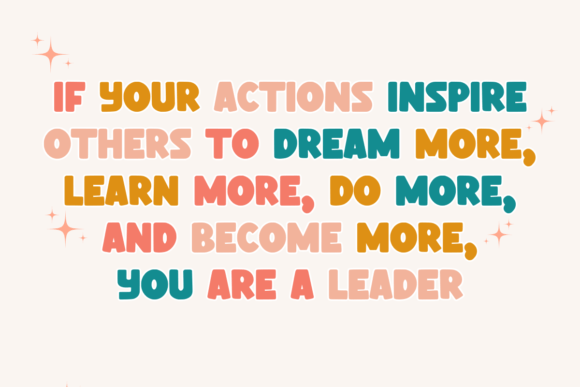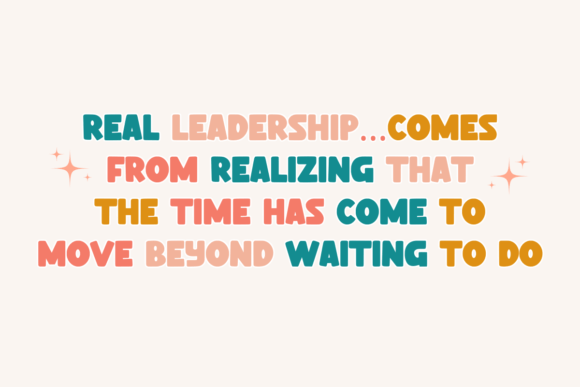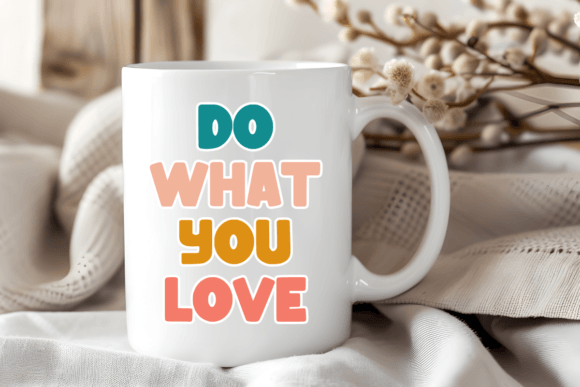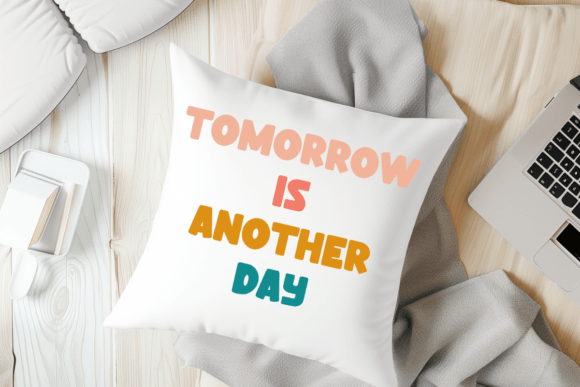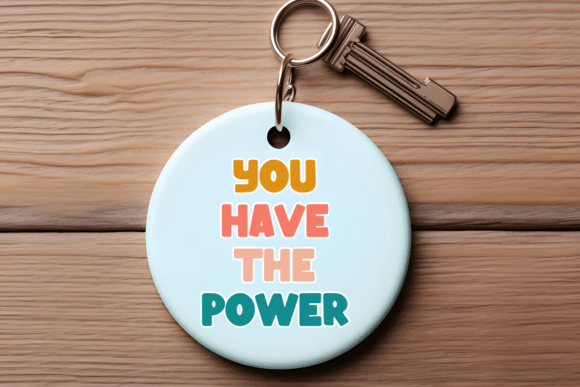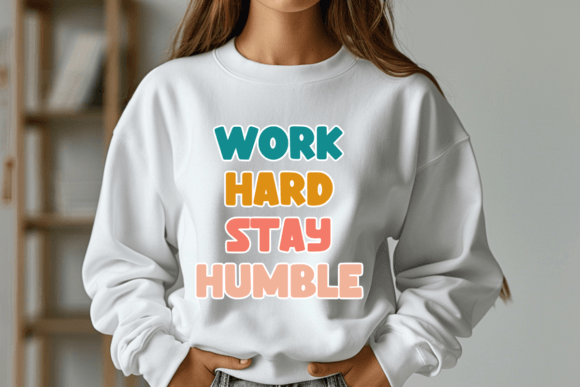
Gole Squad Font: The Ultimate Fun and Bold Display Font for Creative Projects
Are you looking for a font that can add a touch of fun and playfulness to your design projects? Look no further than the Gole Squad Font! This bold and eye-catching display font is perfect for a wide range of creative projects, from logotypes and stickers to packaging design, Cricut projects, and more.
What is Gole Squad Font?
Gole Squad Font is a fun and bold children display font that is designed to make a statement. Its unique and playful style makes it perfect for designers and crafters who want to add a touch of whimsy to their projects. Whether you’re working on a branding project, creating stickers or packaging, or designing apparel, Gole Squad Font is the perfect choice.
Key Features of Gole Squad Font
- Fun and Bold Style: Gole Squad Font features a bold and playful style that is sure to grab attention.
- Versatile: This font is ready to be used in any project, from logotypes and stickers to packaging design, Cricut projects, and more.
- Easy to Read: Despite its bold style, Gole Squad Font is easy to read, making it perfect for headlines, posters, and other display text.
- Perfect for Kids and Adults Alike: This font is designed to appeal to kids and adults alike, making it perfect for projects targeting a wide range of audiences.
Use Cases for Gole Squad Font
Gole Squad Font is a versatile font that can be used in a wide range of creative projects, including:
- Logotype and Branding: Use Gole Squad Font to create a bold and eye-catching logotype that will help your brand stand out.
- Stickers and Packaging Design: Add a touch of fun and playfulness to your stickers and packaging design with Gole Squad Font.
- Cricut Projects: Gole Squad Font is perfect for Cricut projects, including iron-on designs, vinyl decals, and more.
- Apparel and T-Shirts: Use Gole Squad Font to create bold and eye-catching designs for t-shirts, hoodies, and other apparel.
- Posters and Magazines: Add a touch of fun and playfulness to your posters and magazines with Gole Squad Font.
- Books and Children’s Literature: Gole Squad Font is perfect for children’s books, activity books, and other literature targeting kids.
- YouTube and Instagram: Use Gole Squad Font to create eye-catching thumbnails and graphics for your YouTube and Instagram channels.
- Websites and Blogs: Add a touch of fun and playfulness to your website or blog with Gole Squad Font.
Why Choose Gole Squad Font?
There are many reasons why Gole Squad Font is the perfect choice for your creative projects. Here are just a few:
- Unique and Playful Style: Gole Squad Font features a unique and playful style that will help your projects stand out.
- Versatile: Gole Squad Font can be used in a wide range of creative projects, from logotypes and stickers to packaging design and more.
- High-Quality: This font is designed to be high-quality and easy to read, making it perfect for display text.